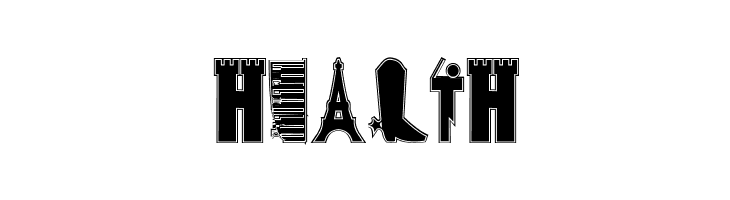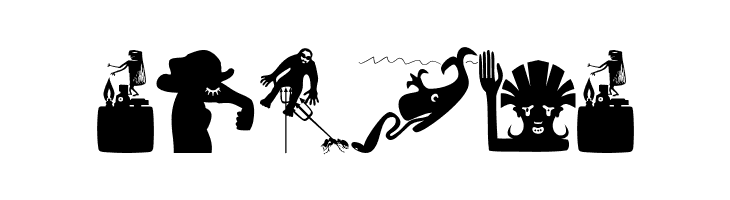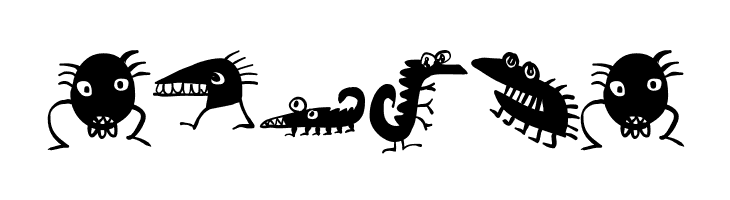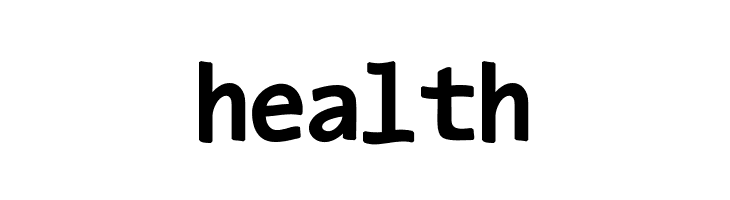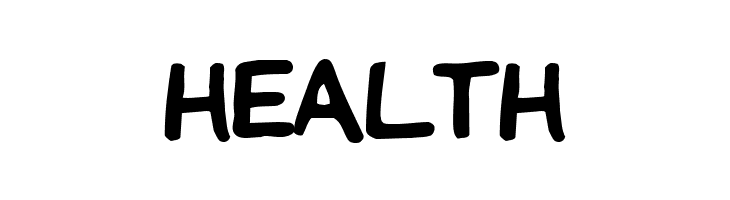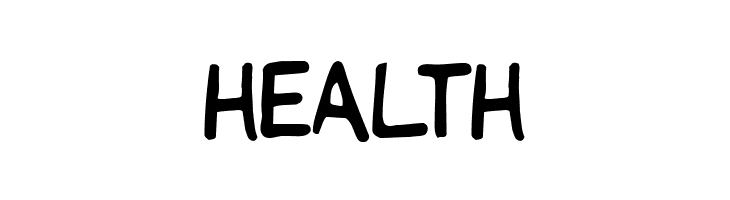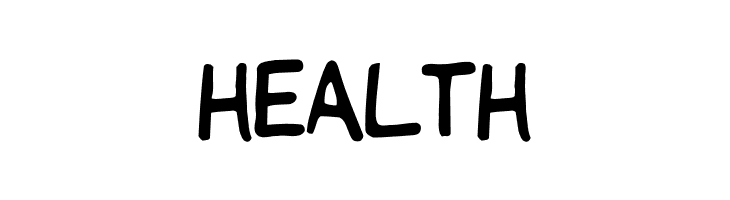
A highly decorative and artistic font with unique, intricate designs for each character.
A surreal and artistic collection of abstract illustrations.
A whimsical collection of decorative animal-like characters with a hand-drawn style.
A bold, playful typewriter-inspired font with rounded, irregular characters.
A bold, balloon-like font with rounded, playful characters.
A bold, playful font with thick, rounded strokes and a hand-drawn feel.
A playful, balloon-like font with rounded, bold characters.
A bold, decorative font with snow-capped characters perfect for winter themes.